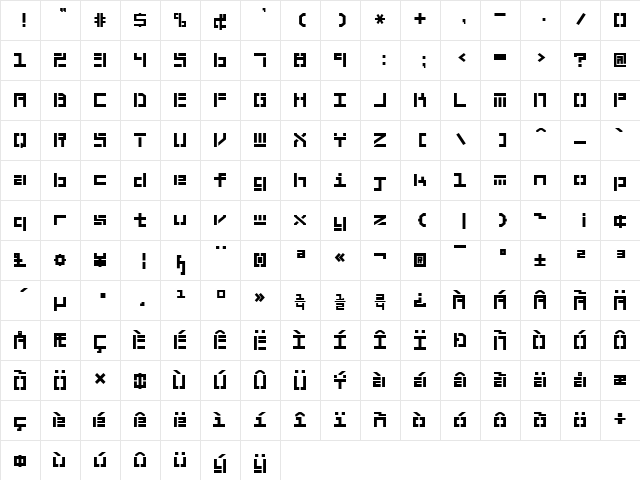
Braciola MS ExB Stencil Regular
| Foundry | zerofonts - a kmzero fonts foundry |
| Designer | Francesco Canovaro |
Design Context for Braciola MS ExB Stencil Typeface
Braciola MS ExB Stencil has the rough pragmatism of spray-painted stencil signage, adding a raw, street-level authenticity to designs.
Ideal for industrial branding, streetwear, military-adjacent aesthetics, and urban signage projects.
Pro Tip: Pair Braciola MS ExB Stencil with raw, utilitarian design elements — exposed concrete textures, flat colour, and minimal ornamentation suit it well.